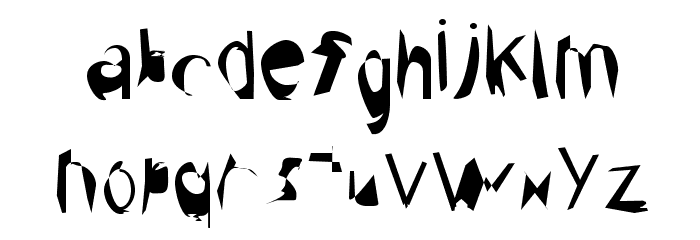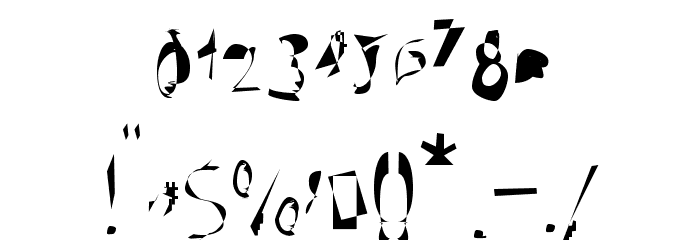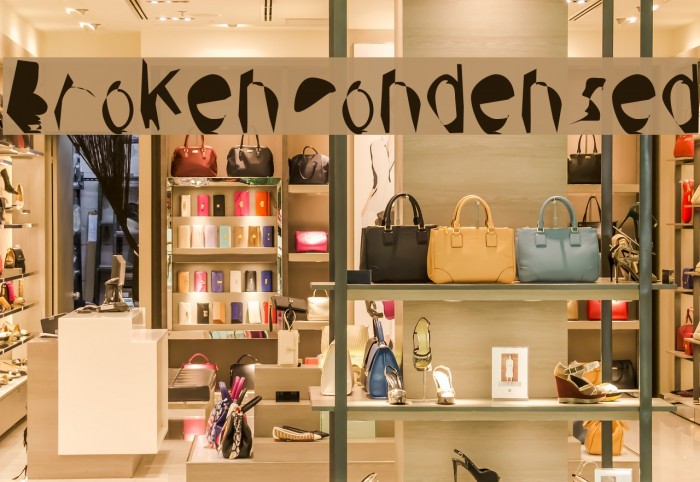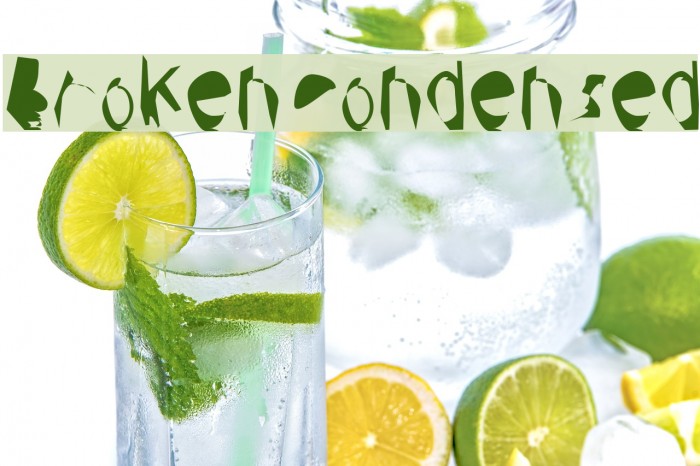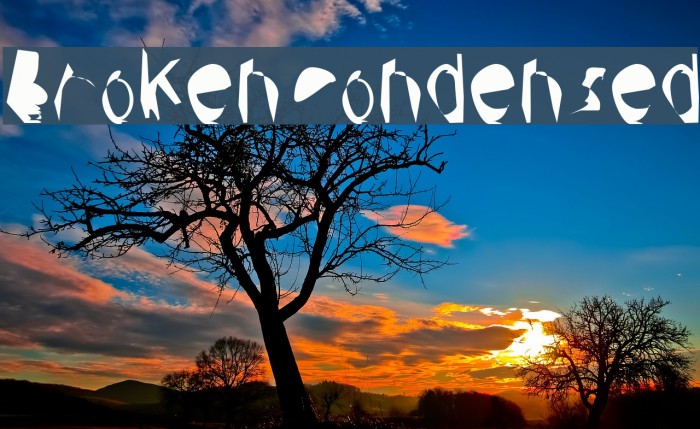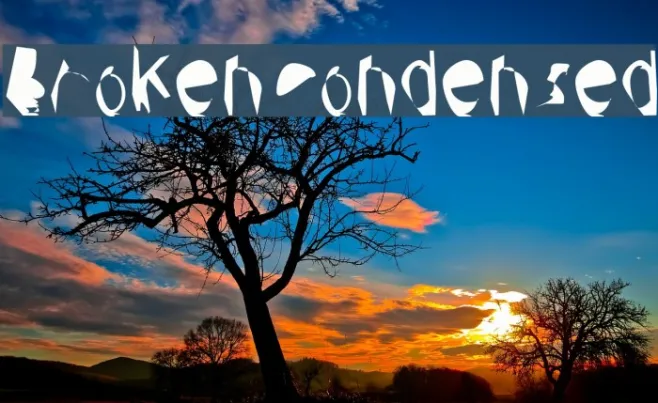
Broken Condensed Font
This font features a highly abstract and fragmented design, with each character appearing as if it has been shattered or broken apart. The letters are condensed and irregular, creating a chaotic yet visually intriguing appearance. The strokes are bold and uneven, with sharp angles and unexpected cuts that give the font a dynamic and edgy feel. This style is reminiscent of a distressed or deconstructed aesthetic, making it stand out in any design. The font's unique character shapes and unpredictable forms make it ideal for projects that require a bold and unconventional look.
A bold, fragmented font with a chaotic, deconstructed style.
- Proposed Projects: Ideal for edgy posters, album covers, avant-garde branding, and artistic projects that require a unique and striking visual impact.
- Character Spacing: Tight
- Overall Style: Modern, Edgy
- Use Case: Headlines, Logos, Artistic Designs